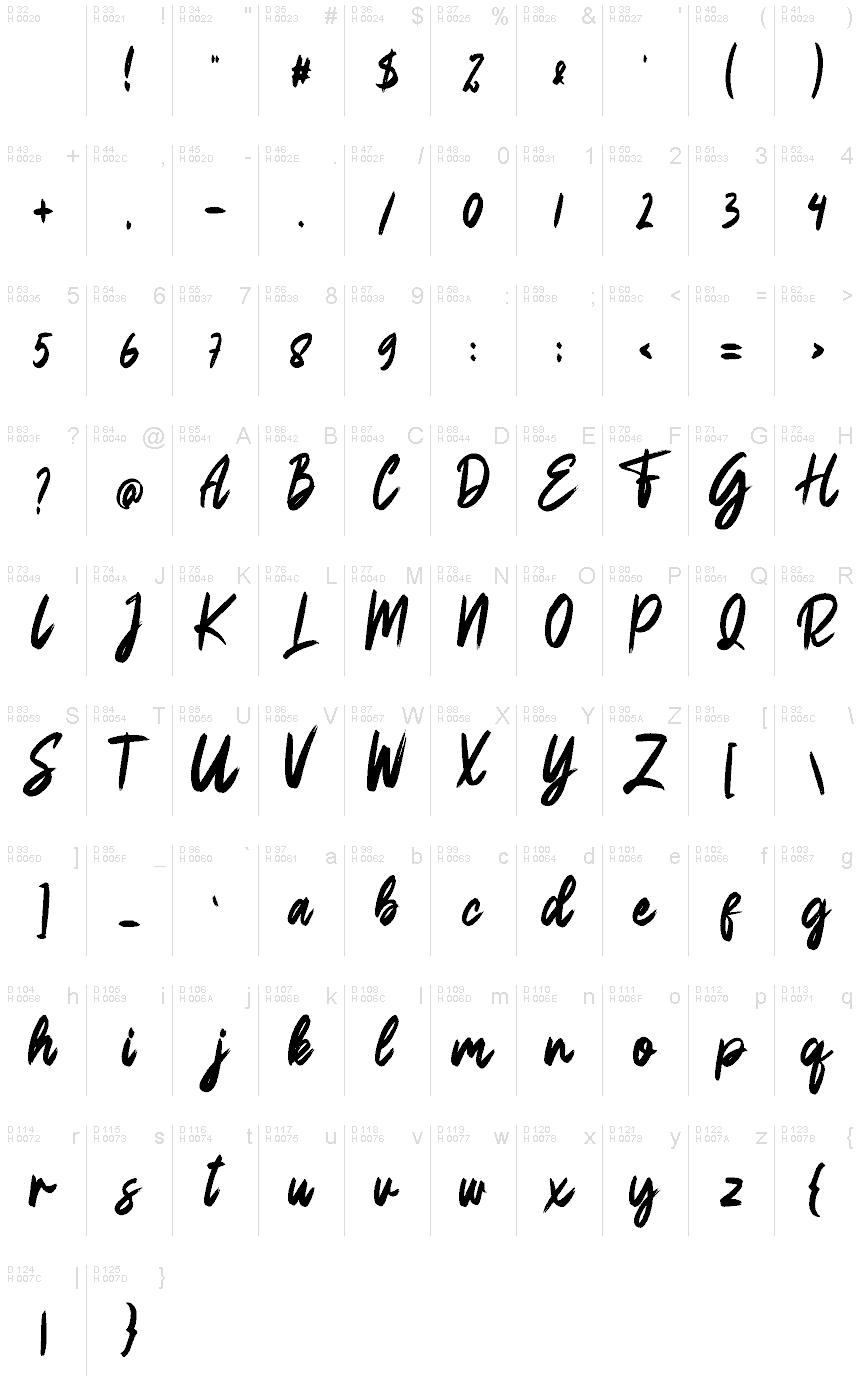
Desheer
Today’s project is the Desheer brush font designed by Skiiller Studio. The font comes with a friendly and outgoing feel, offering thick, bold lines for a signature design, as well as a stylish UX experience. And this is only the beginning of the adventures you can encounter with this new free resource.
It’s an excellent pick if you need to use it in packaging design, cosmetics, or branding projects, but you can also take it to the next level for your photography branding or posters. And the friendly look of this font won’t let you down with personal and greeting cards, invitation cards, movie posters, and even digital content with an artistic flair. Let your imagination run wild with a set of different styles that can all bring something unique and special.